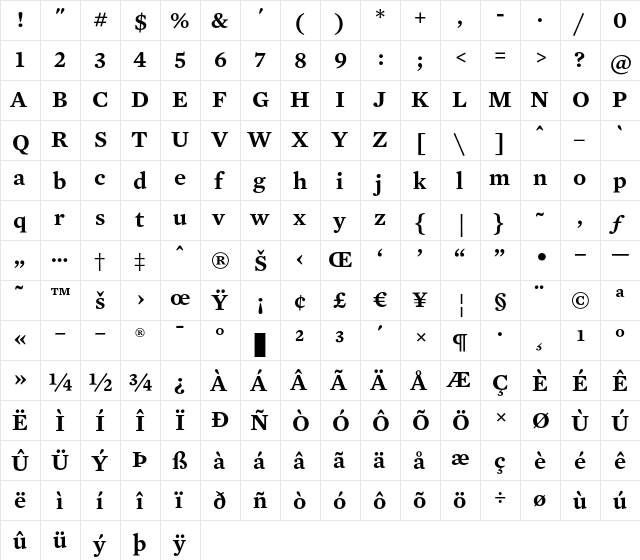
Mercury Text G2 Semibold
Design Context for Mercury Text G2 Typeface
Mercury Text G2 takes a measured approach to typography — its balanced proportions and neutral character make it a reliable workhorse for both digital and print work. The heavy weight commands attention and anchors typographic hierarchies.